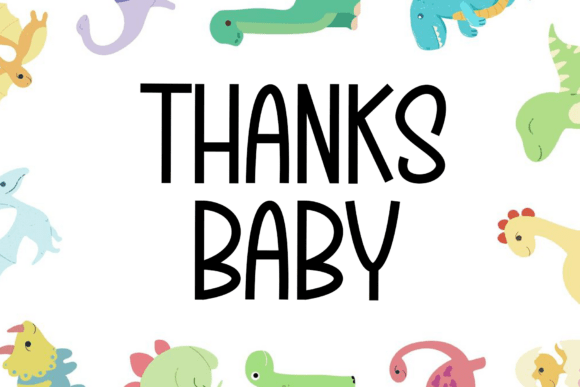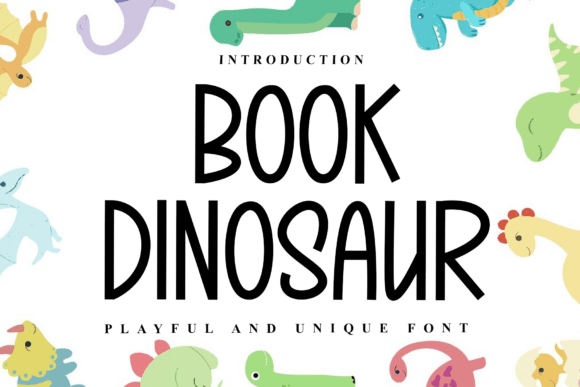
The Designer’s Delight: Book Dinosaur Font
Have you ever been in the middle of a design project, and suddenly, you’re stuck on finding the perfect font? I recall a recent experience where a client asked for a modern, yet approachable look for their brand. After hours of scouring through font libraries, I stumbled upon Book Dinosaur – a smart and minimal handwritten sans-serif font that instantly caught my attention. Its rounded corners and unique letterforms gave it a soft yet striking appearance, making it an ideal choice for branding, social media content, logos, and digital applications.
A First Impression: What I Love About Book Dinosaur
Here’s what makes Book Dinosaur a standout font:
- ✨ Unique and modern aesthetic: Book Dinosaur’s rounded corners and clean lines make it a perfect blend of professionalism and creativity.
- ✅ Highly versatile: This font is suitable for a wide range of design projects, from branding and logos to social media content and digital applications.
- 💡 Easy to read: The font’s clear and simple design ensures that your message is conveyed effectively, making it perfect for body text and headings.
The Not-So-Perfect: Small Quirks and Limitations
While Book Dinosaur is an excellent font, there are a few minor quirks to be aware of:
- 🤔 Limited use in formal contexts: Due to its modern and creative vibe, Book Dinosaur might not be the best fit for very formal or traditional designs.
- ⚠️ Some characters may require adjustment: As with any font, you might need to tweak certain characters to achieve optimal spacing and alignment.
The Story Behind Book Dinosaur
Book Dinosaur was designed with the goal of creating a modern, yet approachable font that could be used in a variety of design contexts. The designer aimed to create a font that was both professional and creative, with a unique aesthetic that would stand out in any design project.
| What is Book Dinosaur font? | Book Dinosaur is a smart and minimal handwritten sans-serif font with rounded corners and unique letterforms. |
| What design projects is Book Dinosaur suitable for? | Book Dinosaur is perfect for branding, social media content, logos, and digital applications. |
| Can I use Book Dinosaur for body text? | Yes, Book Dinosaur is easy to read and can be used for body text, but it works best as a display font or for headings. |